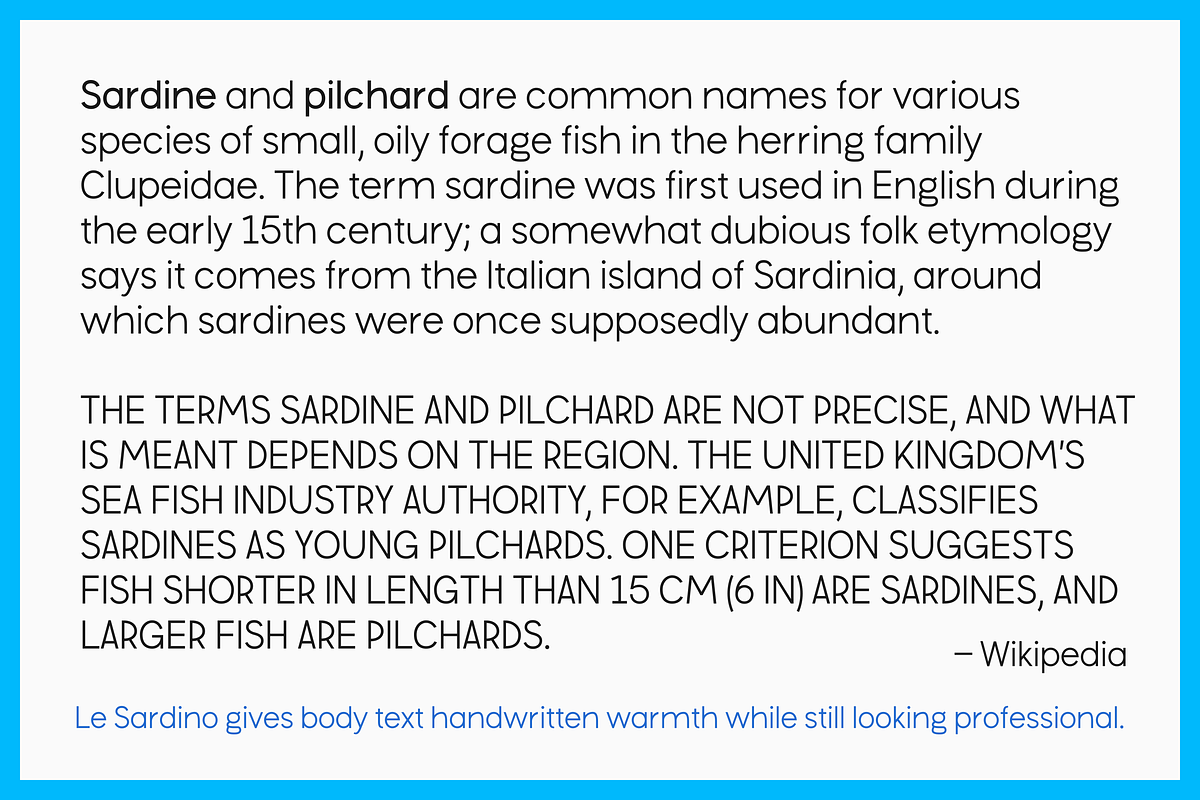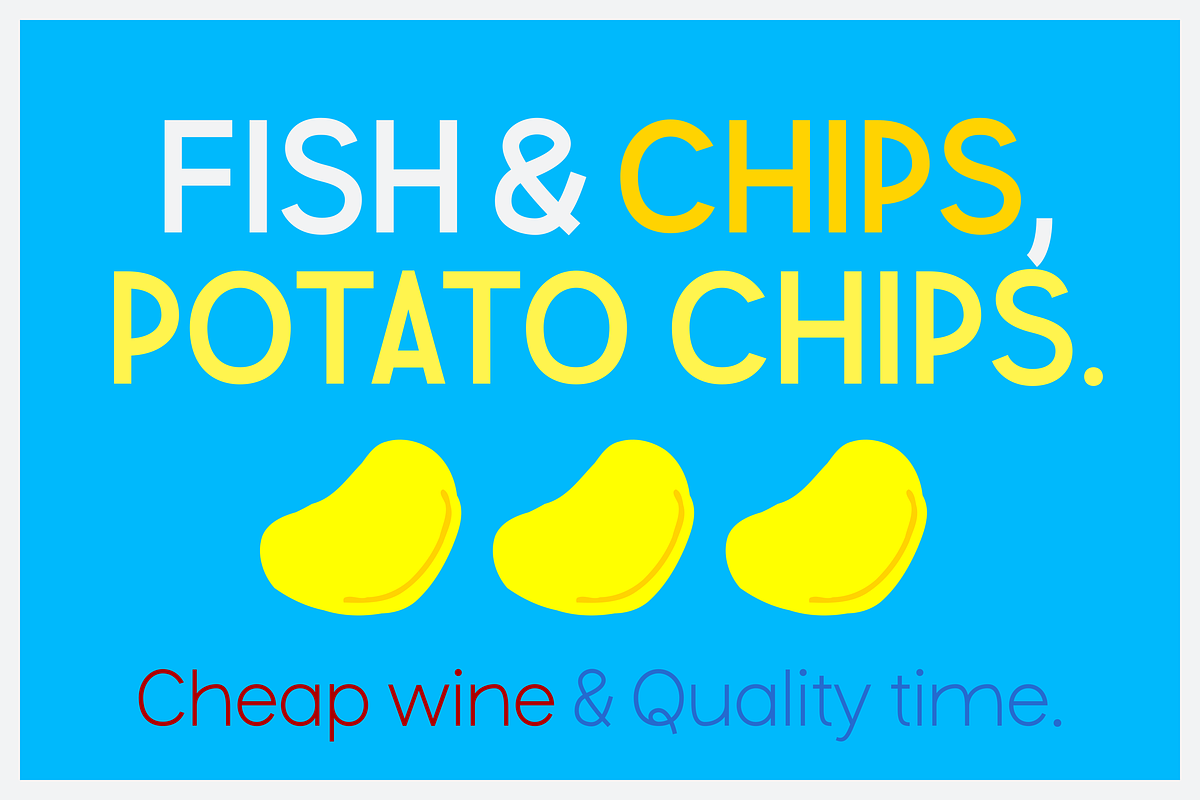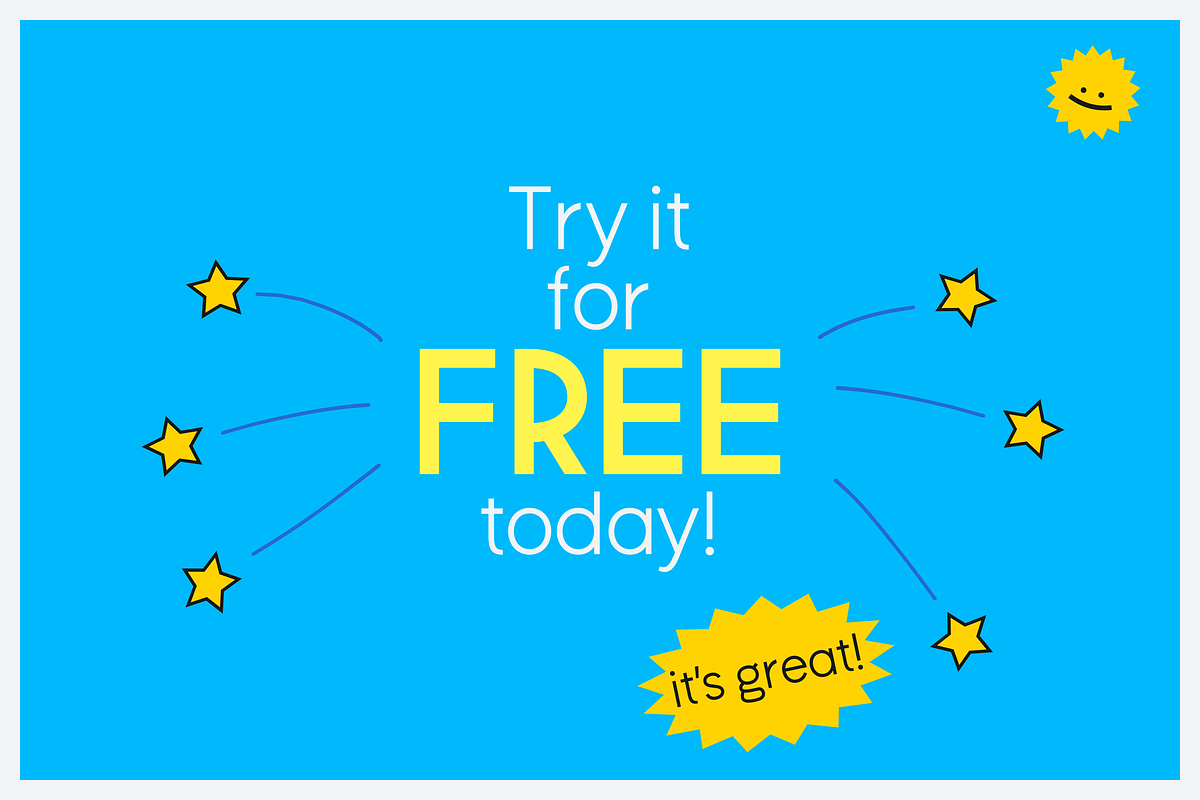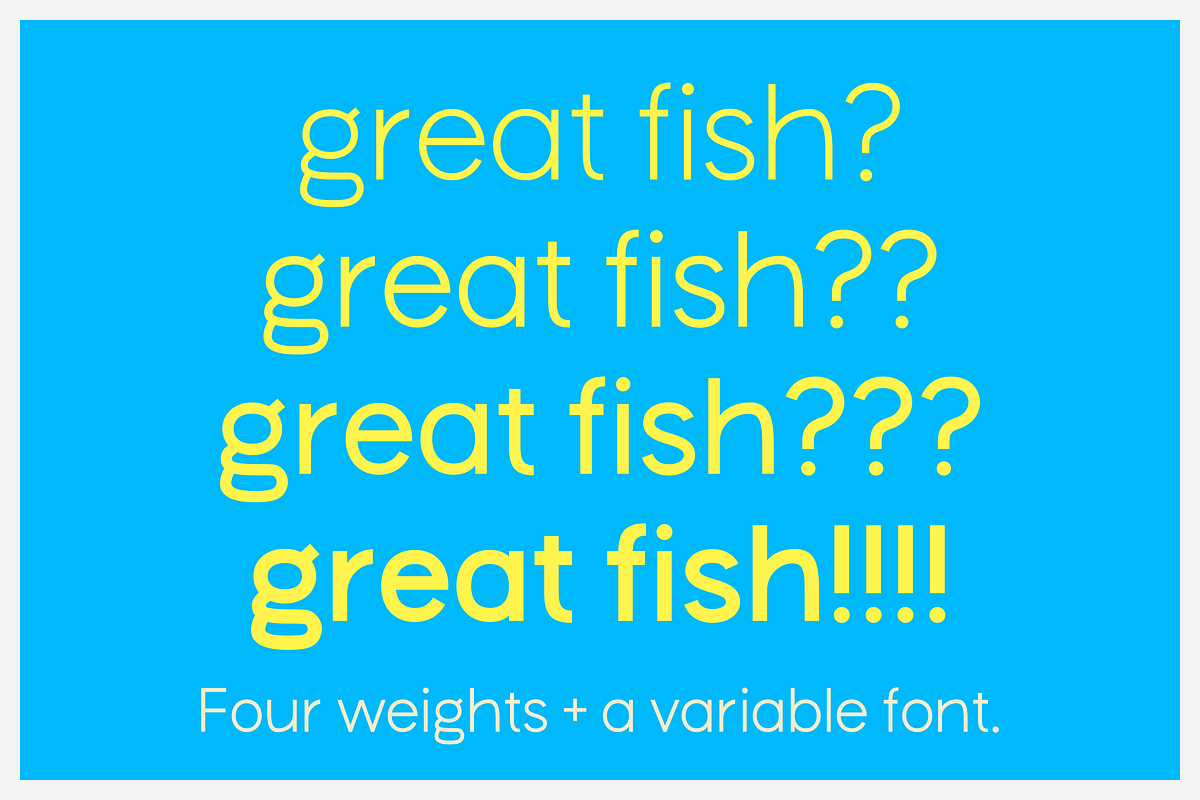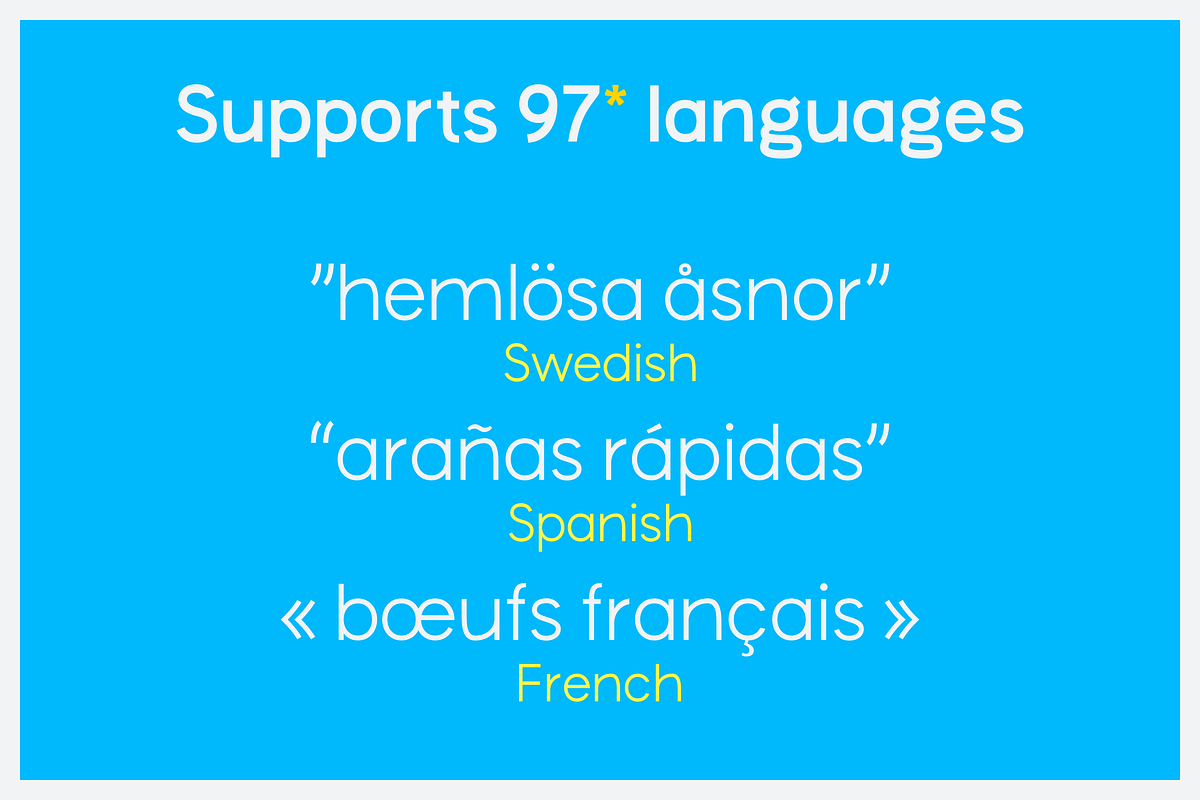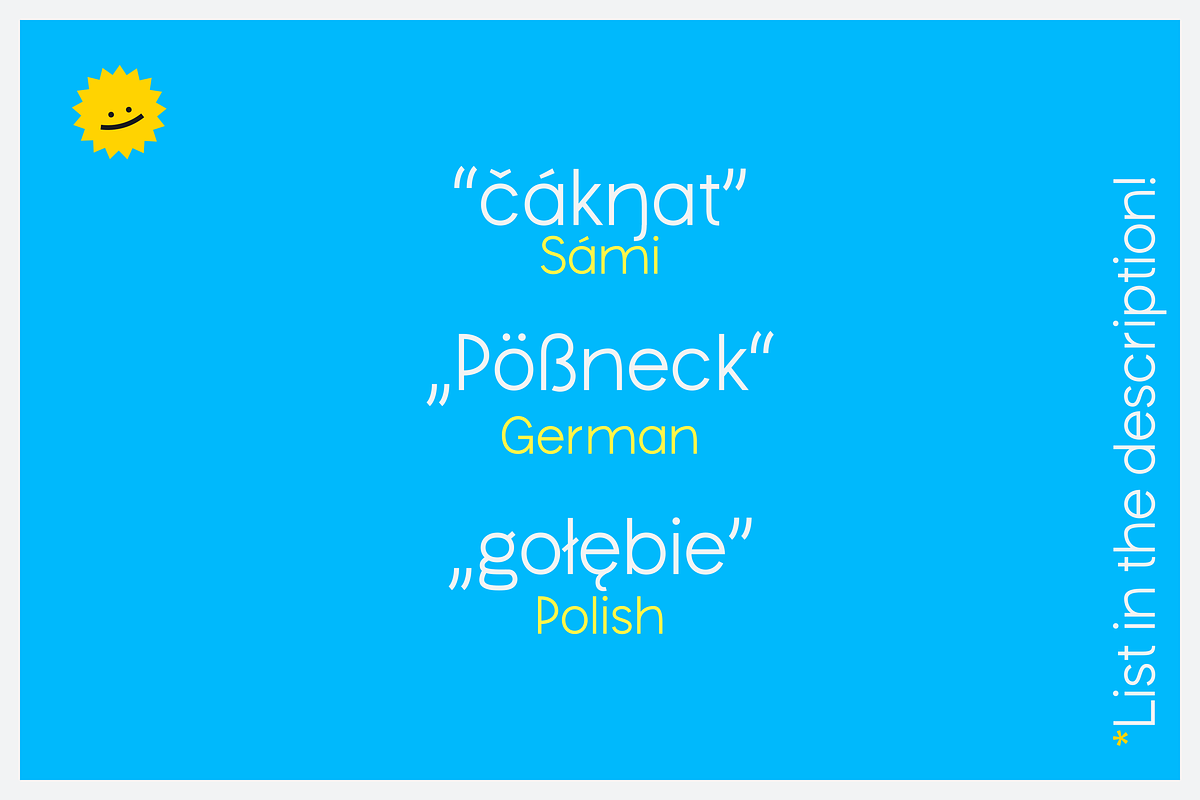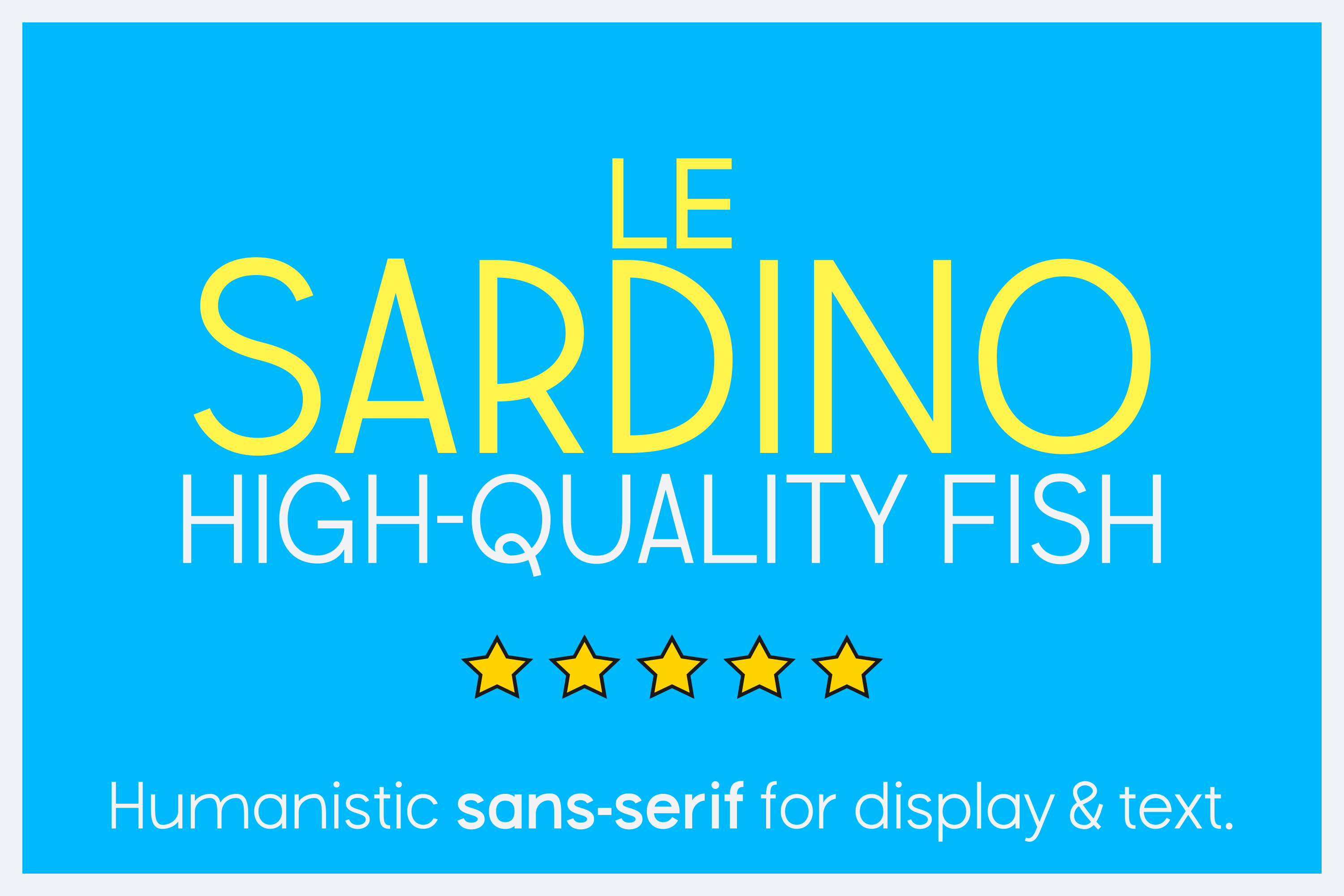
Le Sardino - Font for display & text
Le Sardino is a handwriting inspired sans-serif typeface. It has a lot warmth and friendliness in its shapes. It's perfect for posters, magazine and book covers, logos, and also for body text.
Supports 97 languages: Afrikaans, Albanian, Asturian, Asu, Basque, Bemba, Bena, Breton, Catalan, Chiga, Colognian, Cornish, Croatian, Czech, Danish, Dutch, Embu, English, Esperanto, Estonian, Faroese, Filipino, Finnish, French, Friulian, Galician, Ganda, German, Gusii, Hungarian, Icelandic, Igbo, Inari Sami, Indonesian, Irish, Italian, Jola-Fonyi, Kabuverdianu, Kalenjin, Kamba, Kikuyu, Kinyarwanda, Latvian, Lithuanian, Lower Sorbian, Luo, Luxembourgish, Luyia, Machame, Makhuwa-Meetto, Makonde, Malagasy, Maltese, Manx, Meru, Morisyen, Northern Sami, North Ndebele, Norwegian Bokmål, Norwegian Nynorsk, Nyankole, Oromo, Polish, Portuguese, Quechua, Romanian, Romansh, Rombo, Rundi, Rwa, Samburu, Sango, Sangu, Scottish Gaelic, Sena, Serbian, Shambala, Shona, Slovak, Soga, Somali, Spanish, Swahili, Swedish, Swiss German, Taita, Teso, Turkish, Upper Sorbian, Uzbek (Latin), Volapük, Vunjo, Walser, Welsh, Western Frisian, Yoruba, Zulu